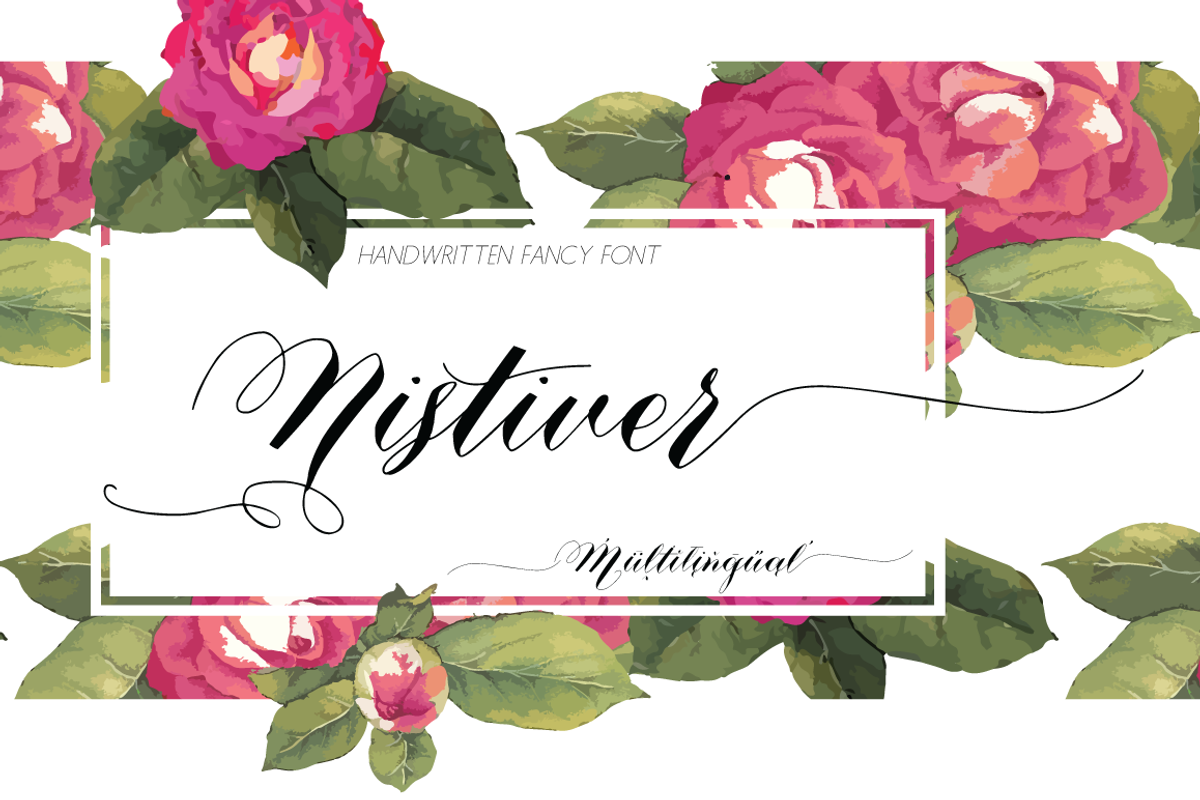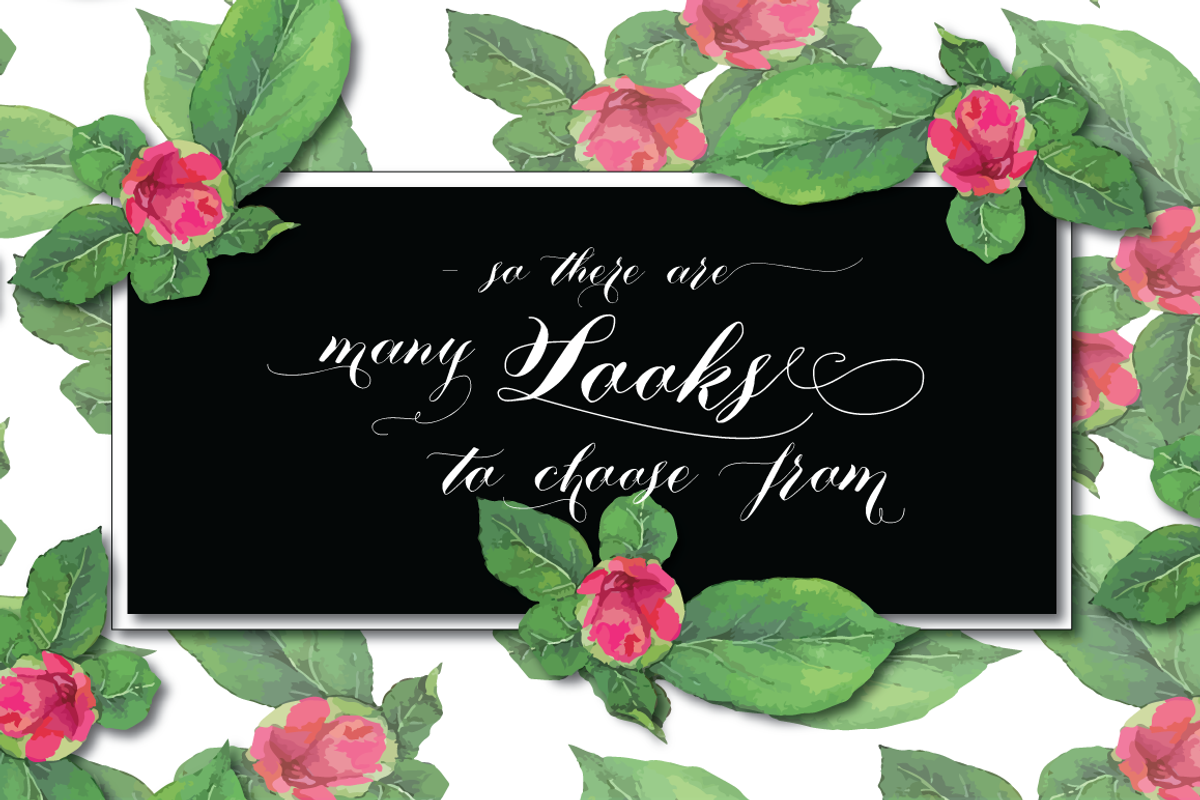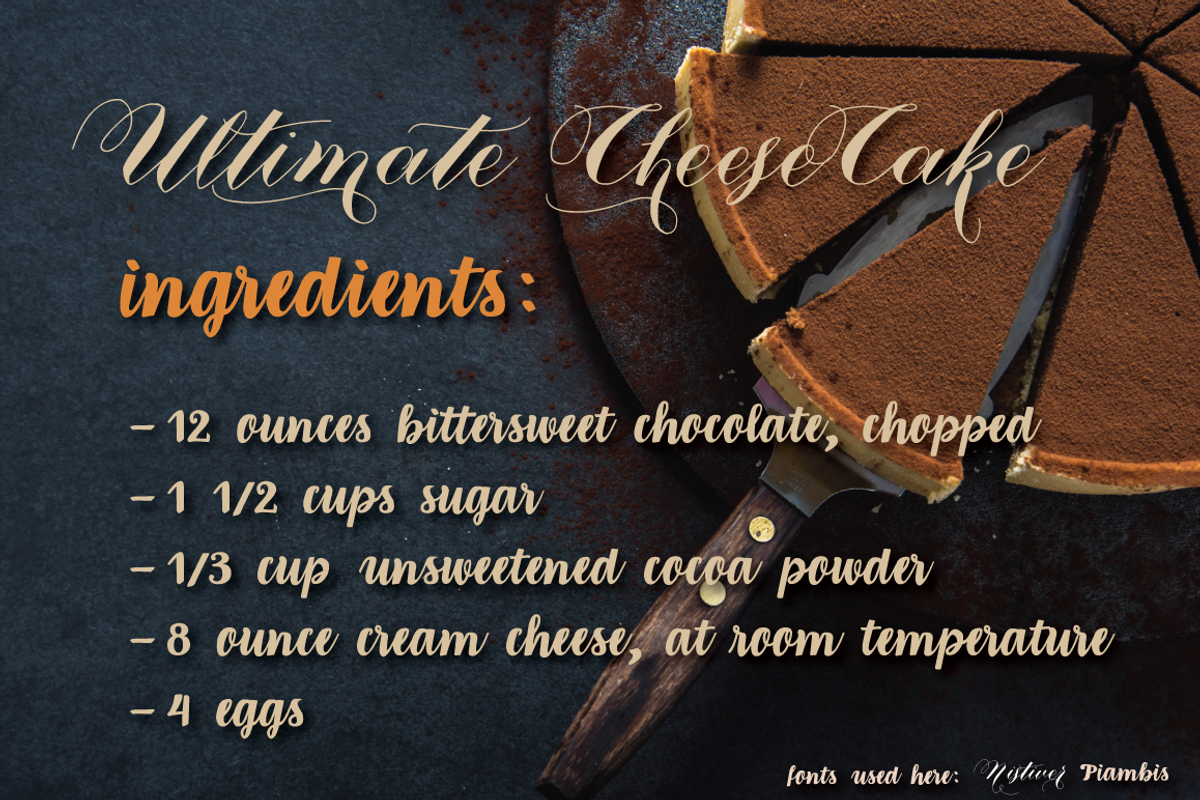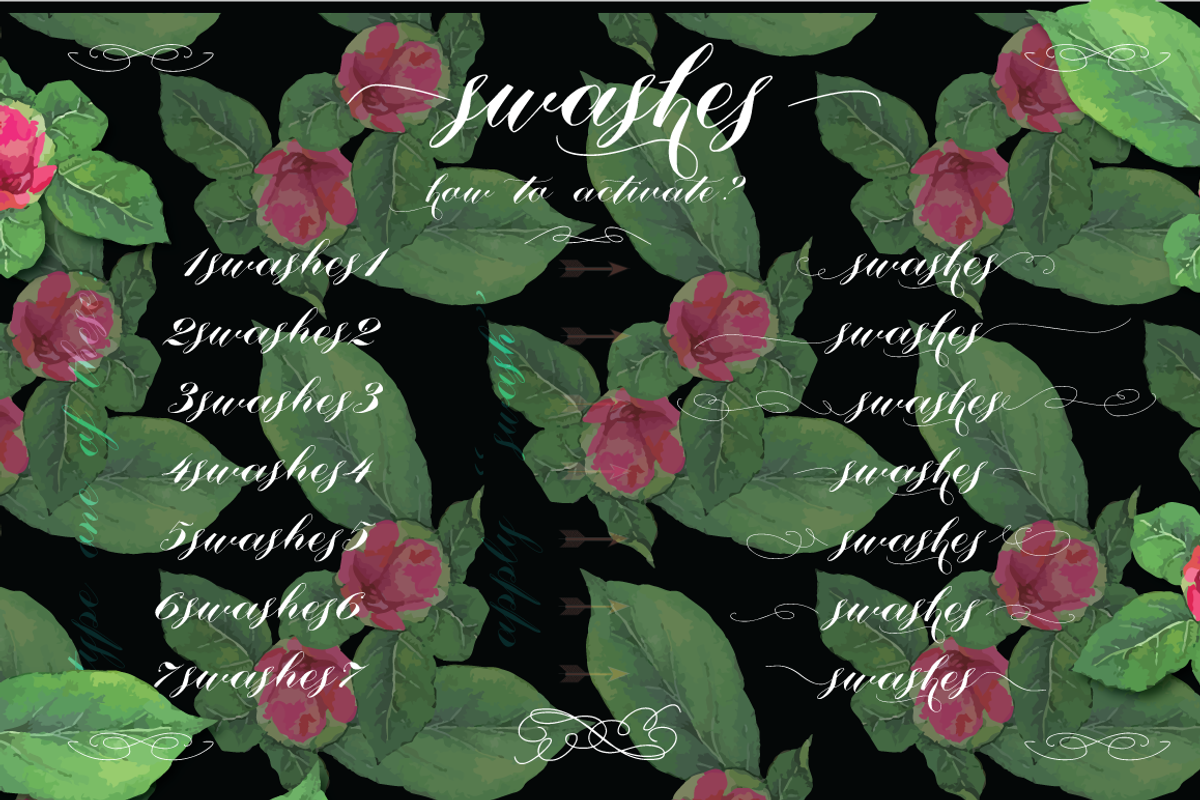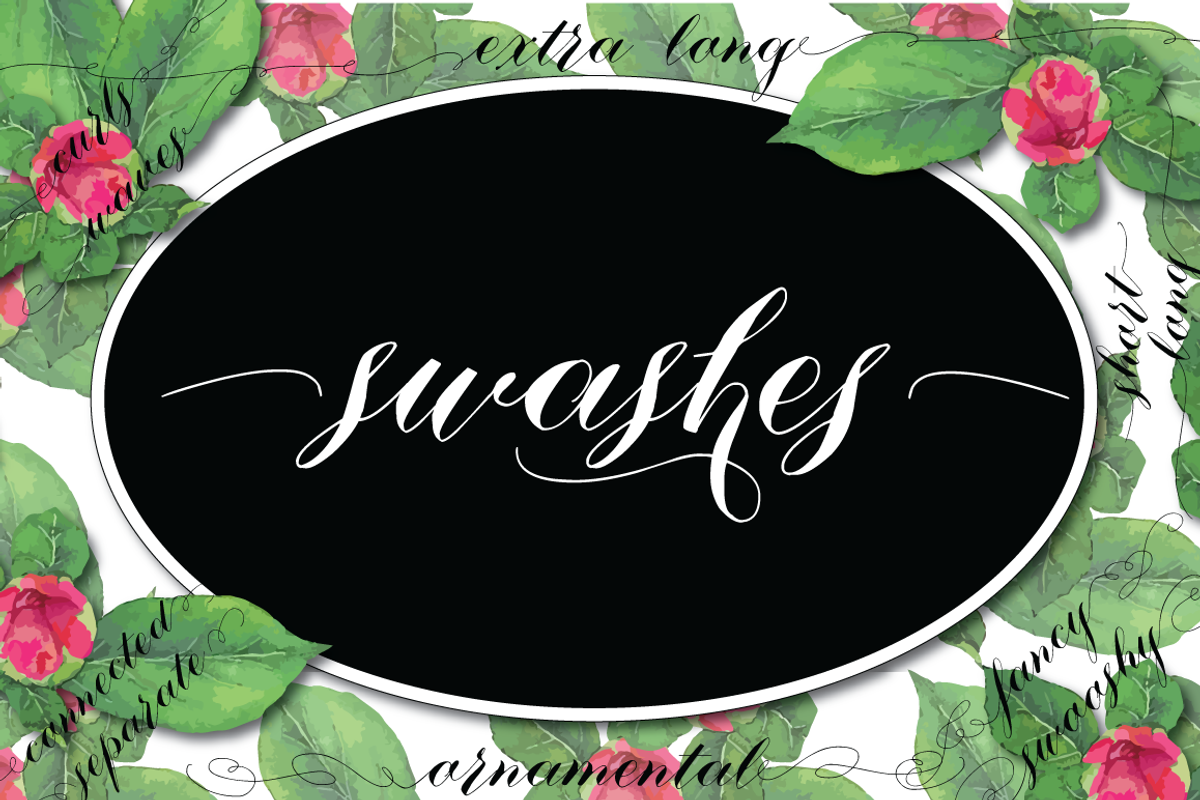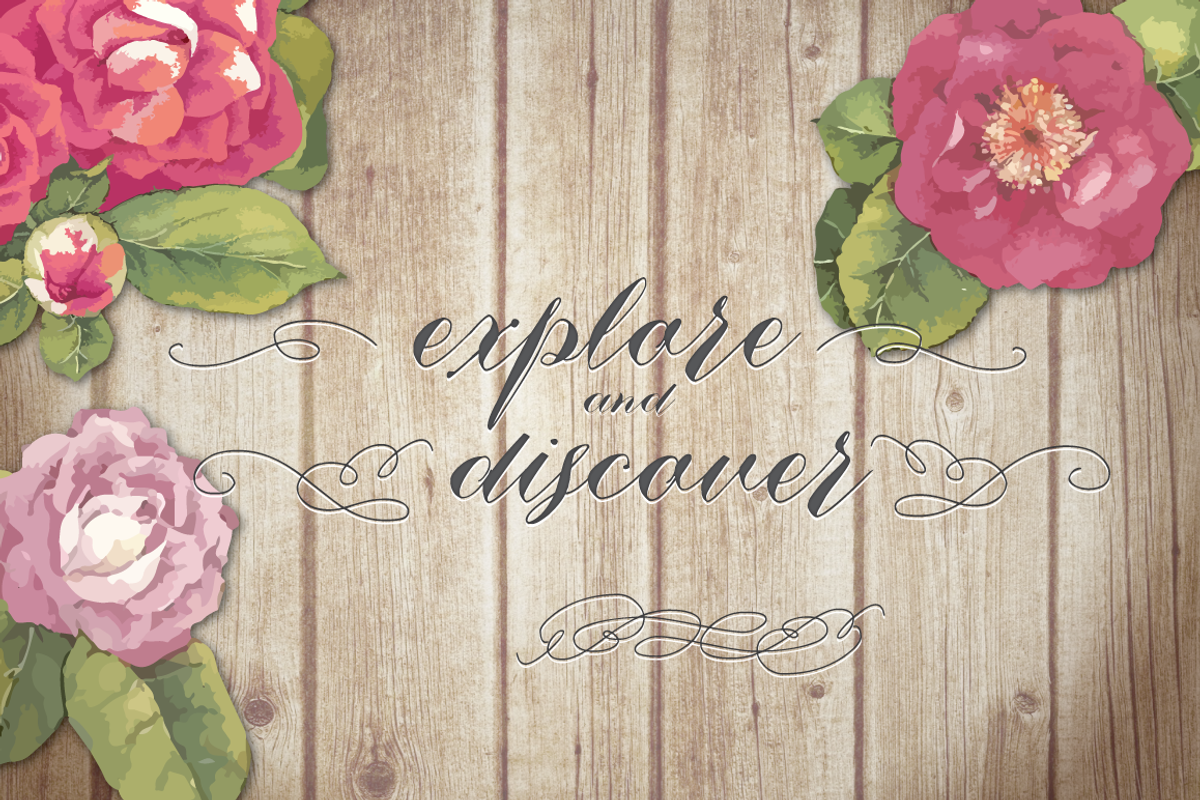
Nistiver Font Family (otf) by Aga Silva is a font selected for branding, posters, packaging, typography.
- OT Features in Nistiver font: • All Alternates • Contextual Alternates • Fractions • Kerning • Standard Ligatures • Swash GLYPH COVERAGE: •
Why Nistiver Font Family (otf) is worth a look
Nistiver Font Family (otf) by Aga Silva fits naturally into Branding, posters, packaging, typography.